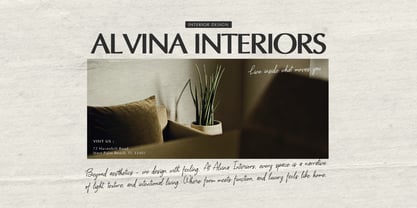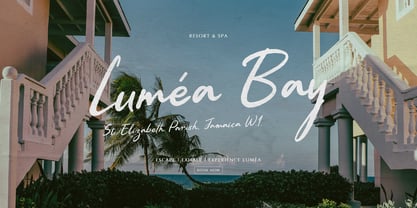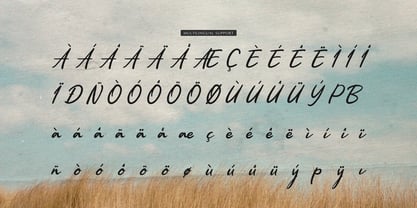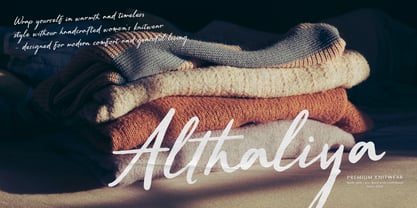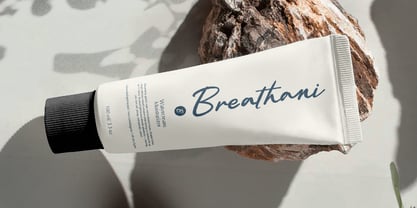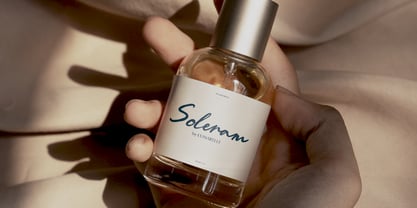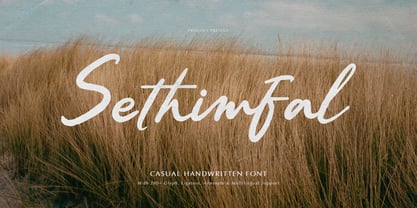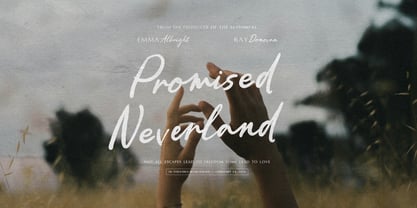
Sethimfal
Sethimfal | Casual Handwritten Font, from Gracetypestudio, suitable for any projects such as: logos, branding projects, homeware designs, product packaging, mugs, quotes, posters, shopping bags, t-shirts, book covers, name card, invitation cards, greeting cards, label, photography, watermark, special events, and all your other lovely projects that need a Casual Handwritten Font taste.
• Regular and Italic
• Standard glyphs
• Alternate and Ligature